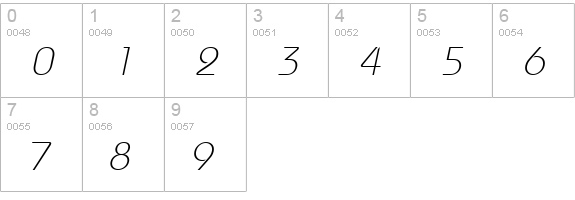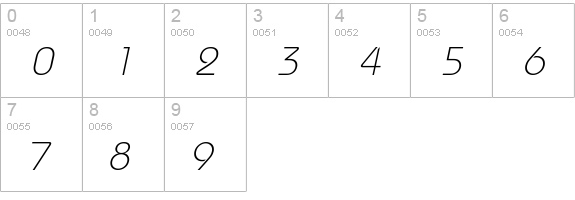
BordeauxLight Italic Font Details
BordeauxLight Italic is a distinctive, italic variant in the BordeauxLight typeface family \xE2\x80\x94 well suited to design and typography projects.
Introducing BordeauxLight Italic font, a delicate and stylish typeface perfect for adding a touch of elegance to your designs. This font features sleek lines and a subtle slant that exudes sophistication and modernity. The BordeauxLight Italic font is versatile and can be used for a wide range of design projects, from branding to invitations to social media graphics. Best of all, BordeauxLight Italic font is available for free download at FontsMarket.com. Whether you're a professional designer or a hobbyist, this font is a must-have in your collection. Don't miss out on the opportunity to enhance your projects with this beautiful and freely accessible typeface. Download BordeauxLight Italic font today and elevate your designs to the next level.